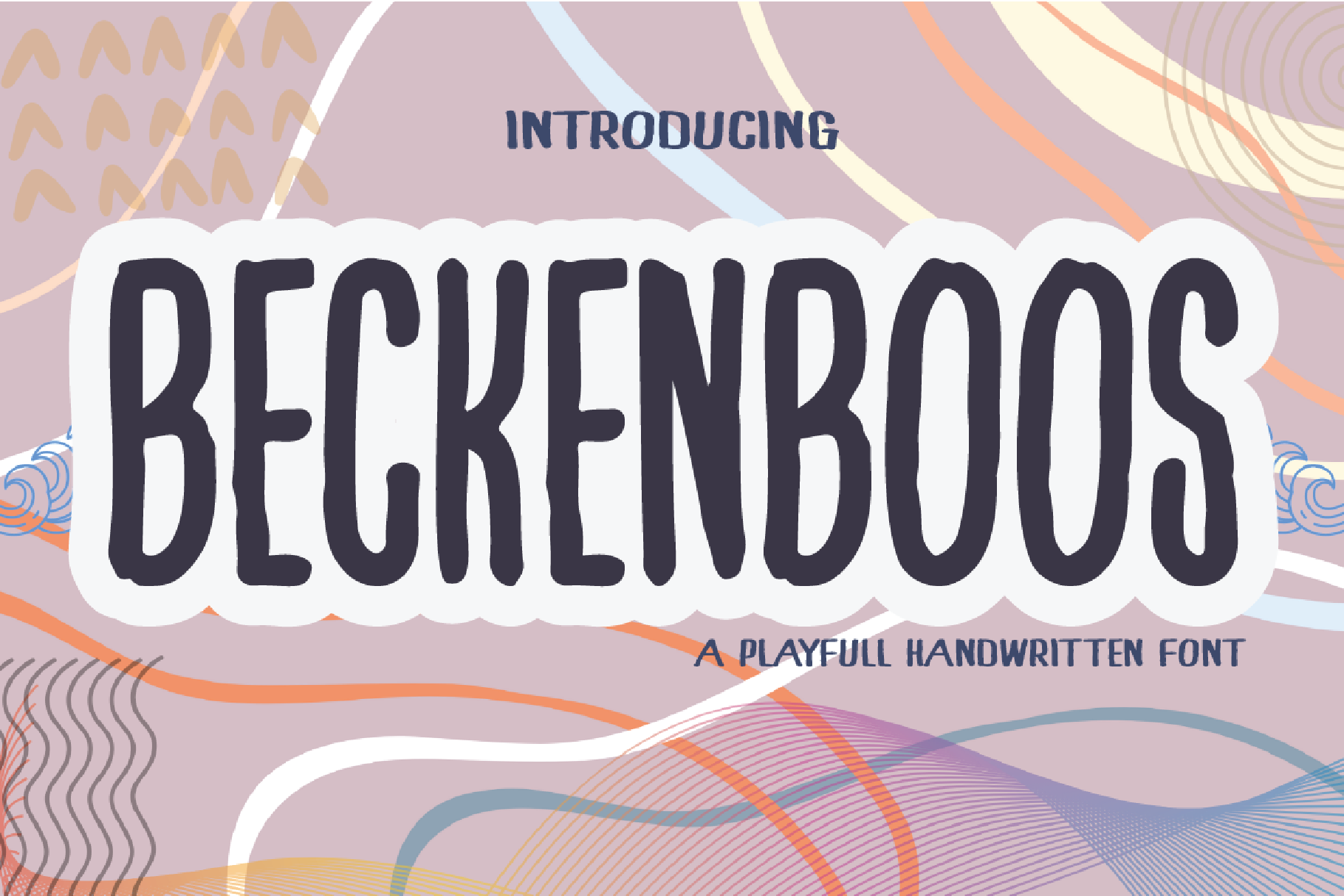
Beckenboss Playfull Font
Beckenboss is a unique and cool handwritten font. Whatever the topic, this font will be a great asset to your font library, as it has the potential to enhance any creation. It’s perfect for a series of large projects, so add it to your creative streak and watch how it makes it stand out, and make it into your collection on your PC and iPad set.